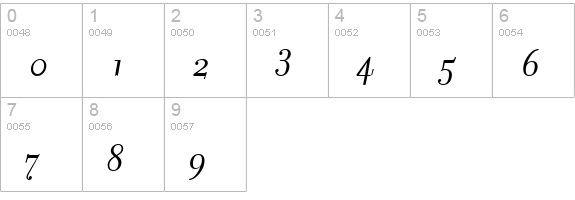
FilosofiaItalic Italic Font Details
FilosofiaItalic Italic is a distinctive, italic variant in the FilosofiaItalic typeface family \xE2\x80\x94 well suited to design and typography projects.
FilosofiaItalic Italic font exudes elegance and sophistication with its sleek, stylish design. The italicized characters add a touch of flair and modernity to any design project. This font is perfect for creating eye-catching headings, titles, and logos that demand attention. What makes FilosofiaItalic Italic font even more appealing is that it is available for free download at FontsMarket.com. This means you can easily access this high-quality font without any cost, making it a valuable addition to your font collection. Don't miss out on the opportunity to elevate your designs with the stunning FilosofiaItalic Italic font. Download it today and see the difference it can make in your projects.